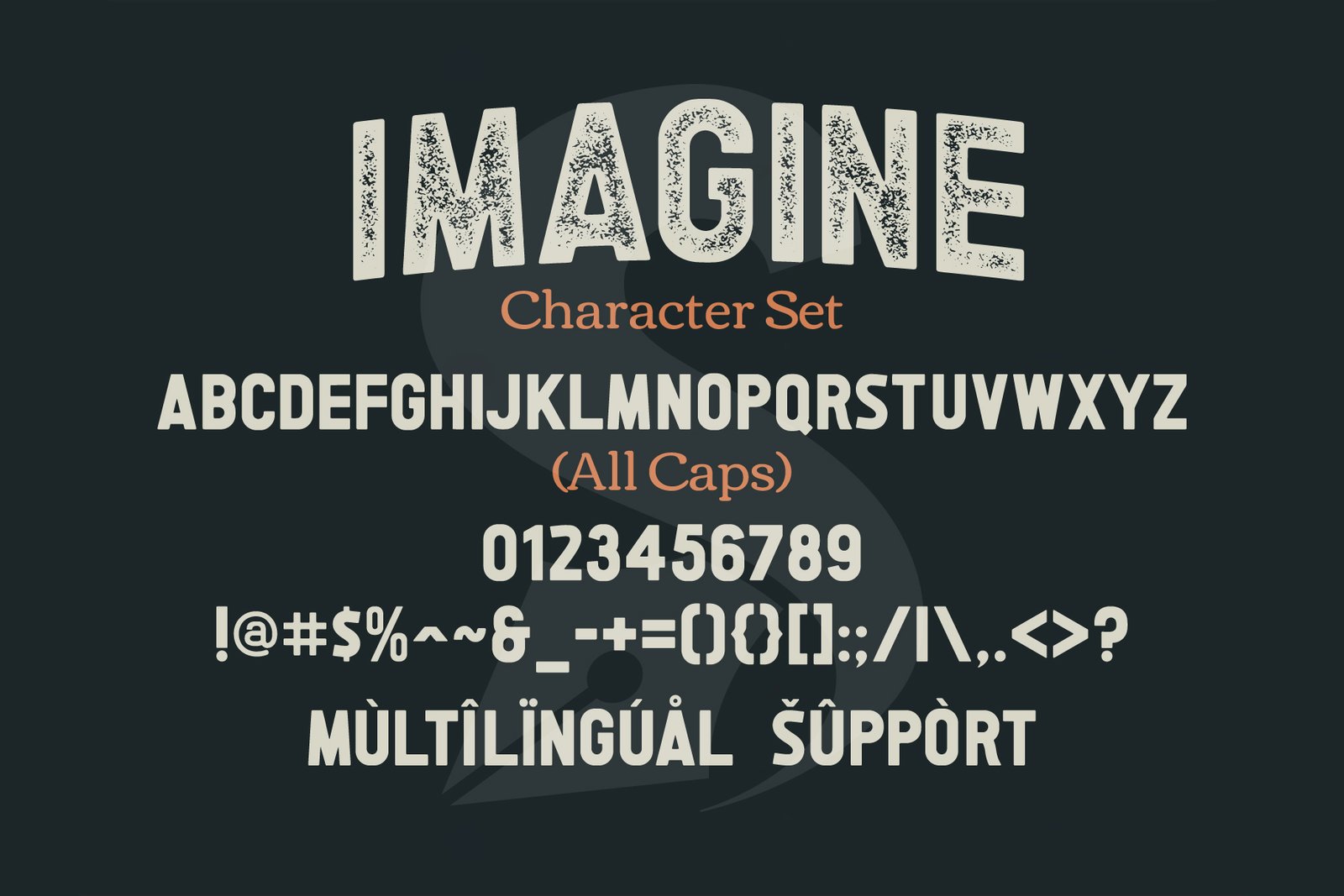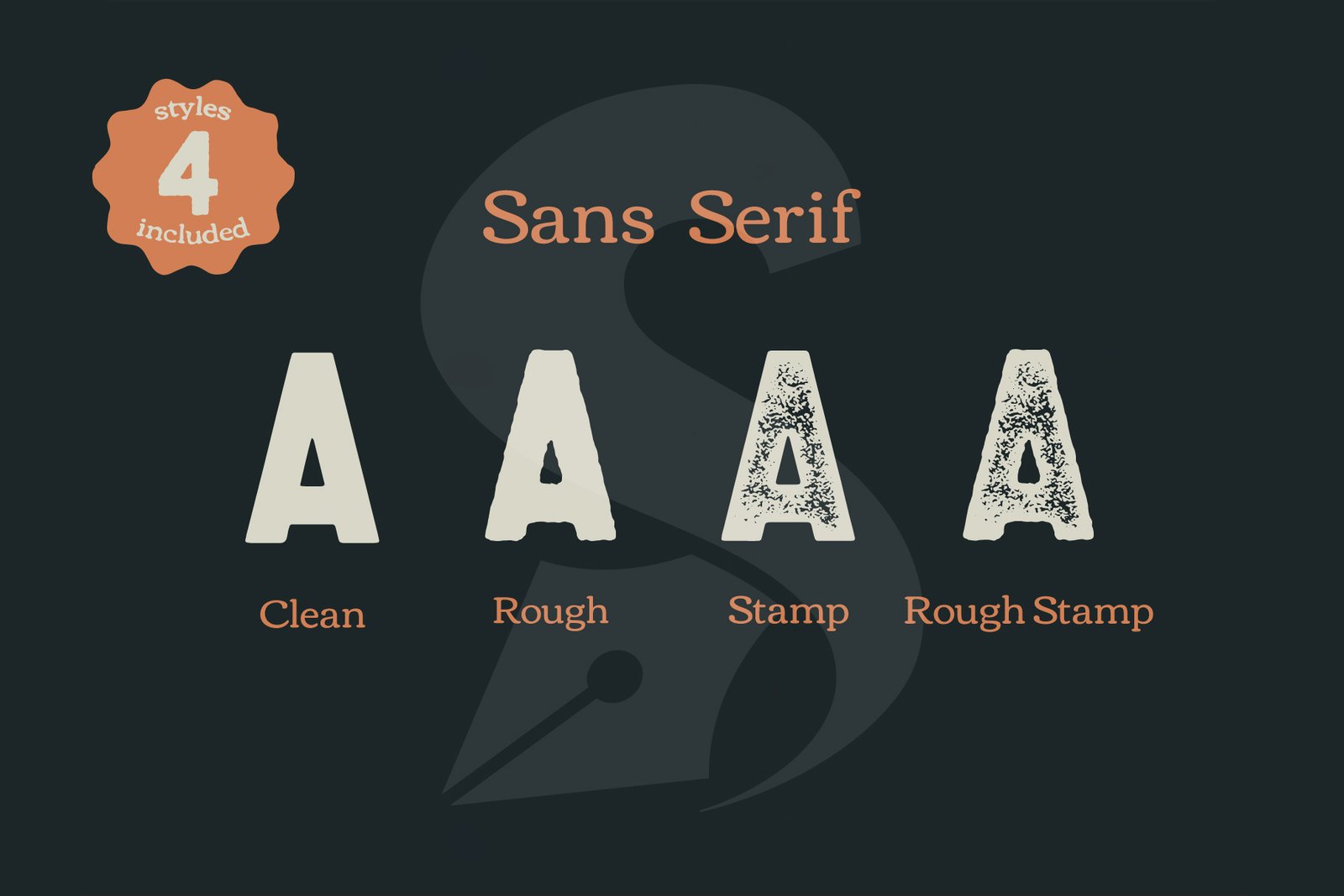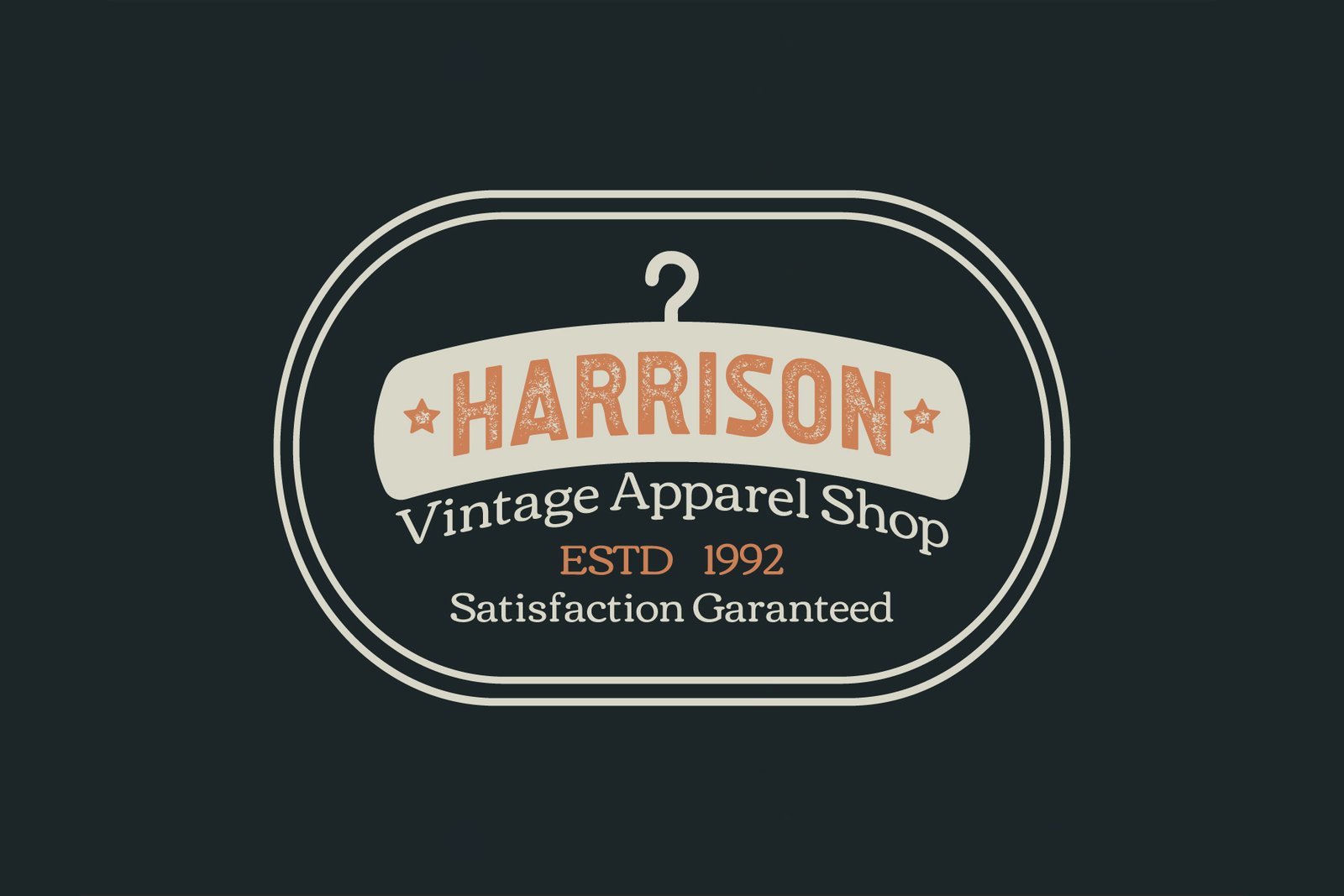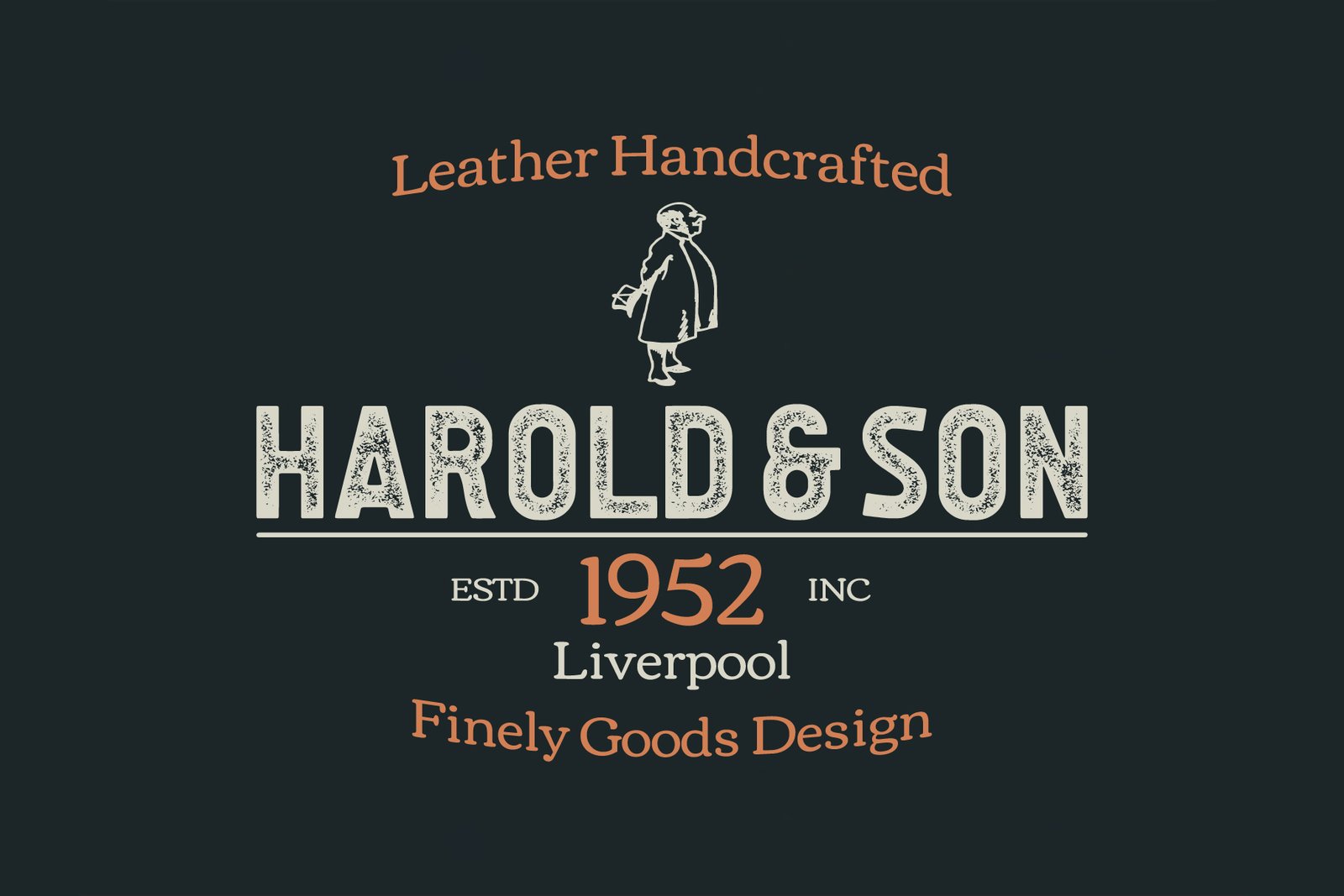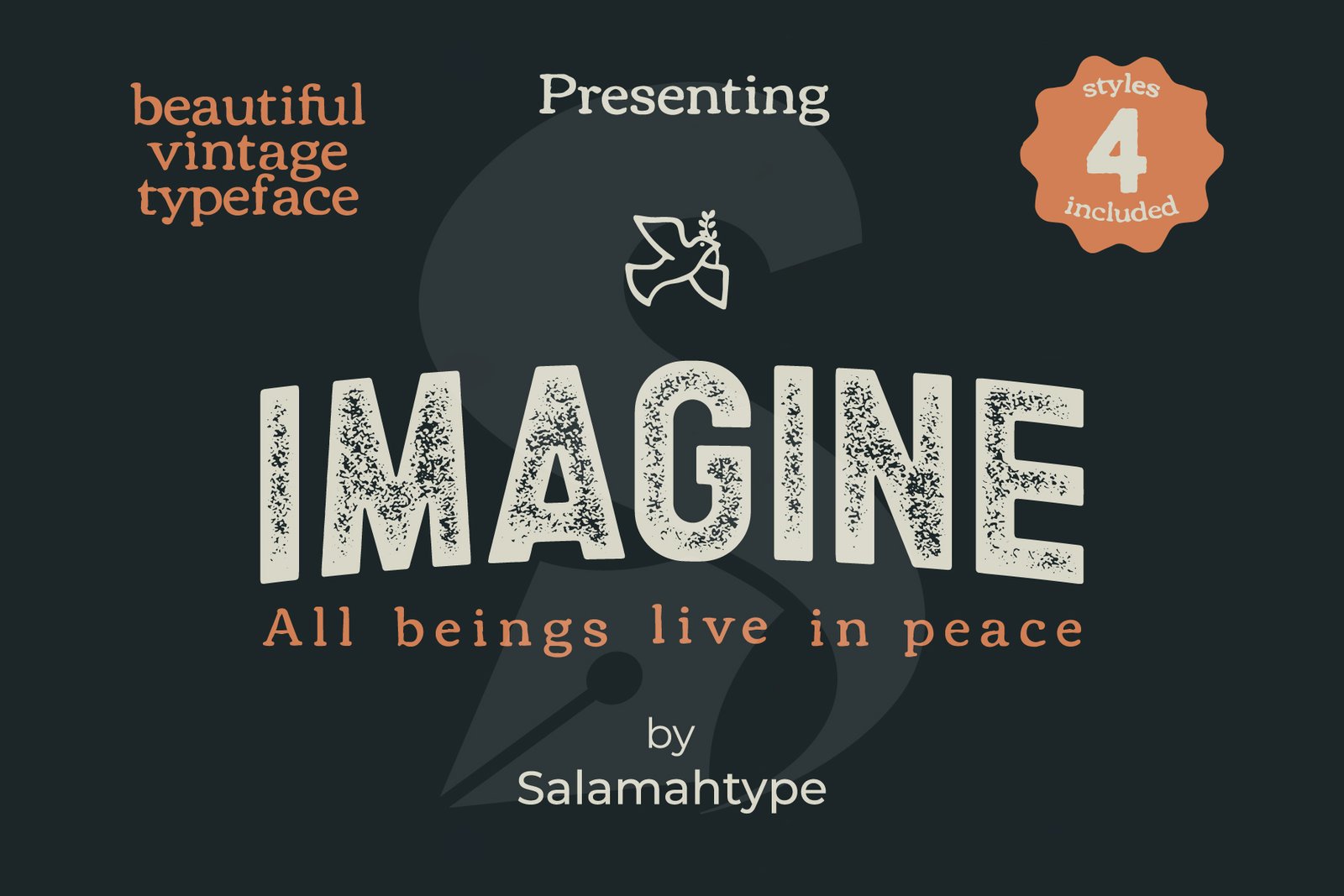
Imagine Sans Serif
Imagine Sans – Modern Sans Serif Font (Clean, Rough, Stamp, Rough Stamp)
Imagine Sans is a bold and versatile sans serif typeface featuring 4 unique styles: Clean, Rough, Stamp, and Rough Stamp.
This font is perfect for branding projects, logos, packaging, labels, posters, signage, and modern design needs. Its clean lines and textured variations make it ideal for both digital and print design.
Whether you’re designing a logo, vintage label, or minimalist brand identity, Imagine Sans brings a strong, timeless look to every project.
Features:
• A–Z All Caps Characters
• Numbers, Symbols & Punctuation
• Multilingual Support
• 4 Font Styles (Clean, Rough, Stamp, Rough Stamp)